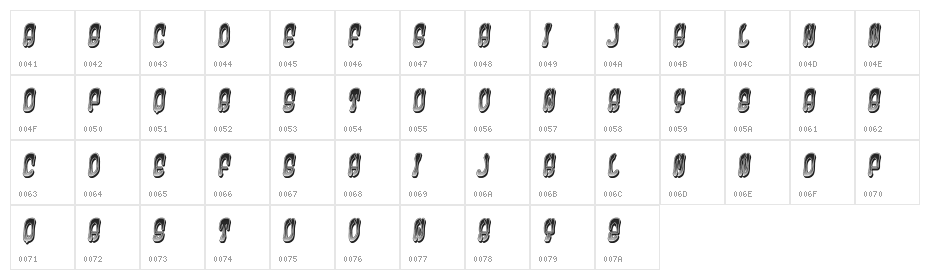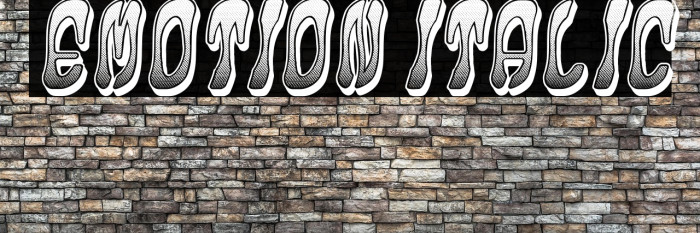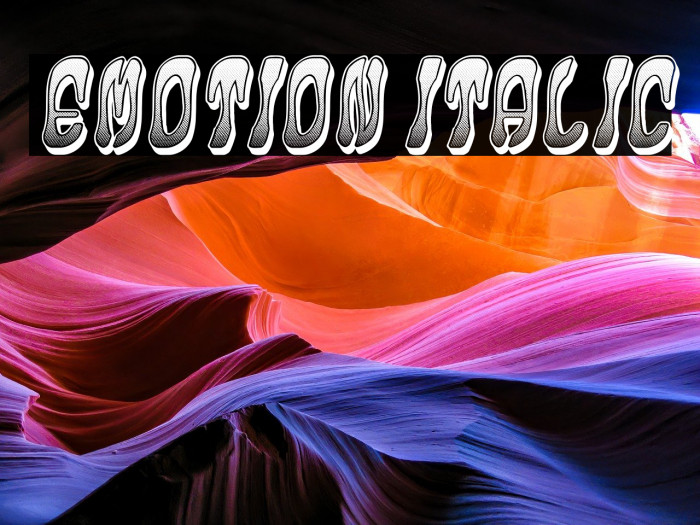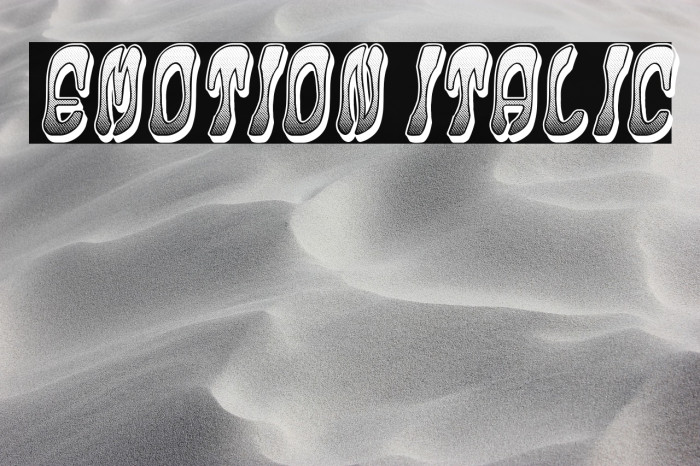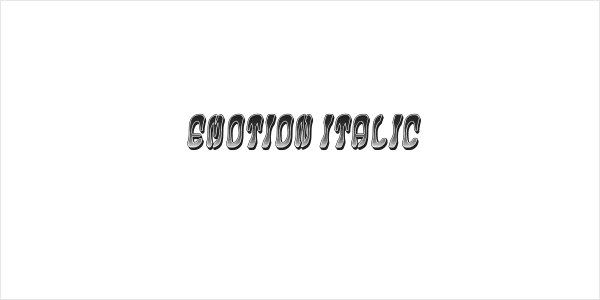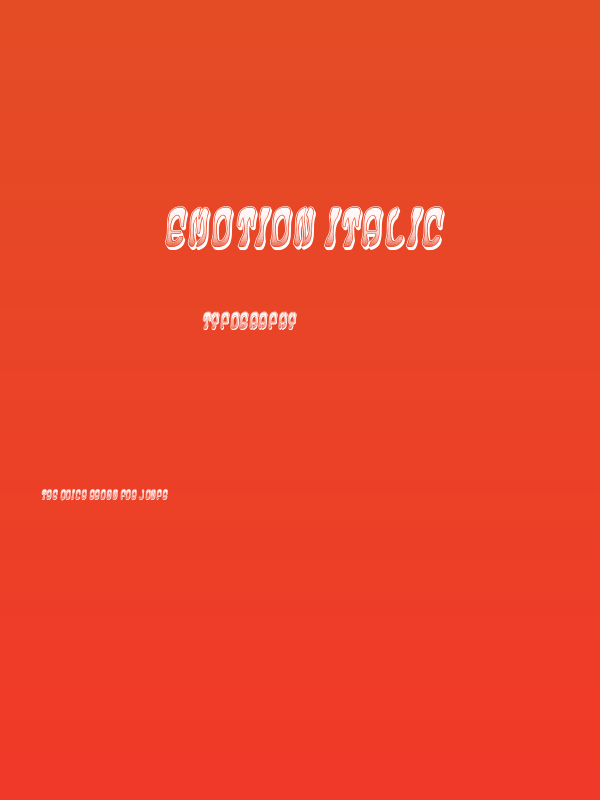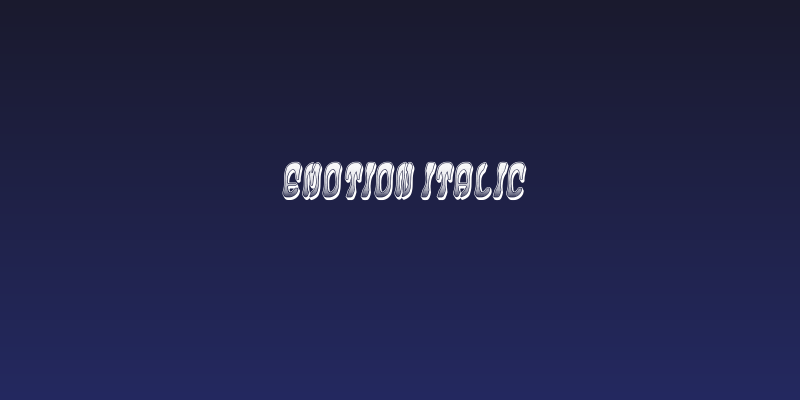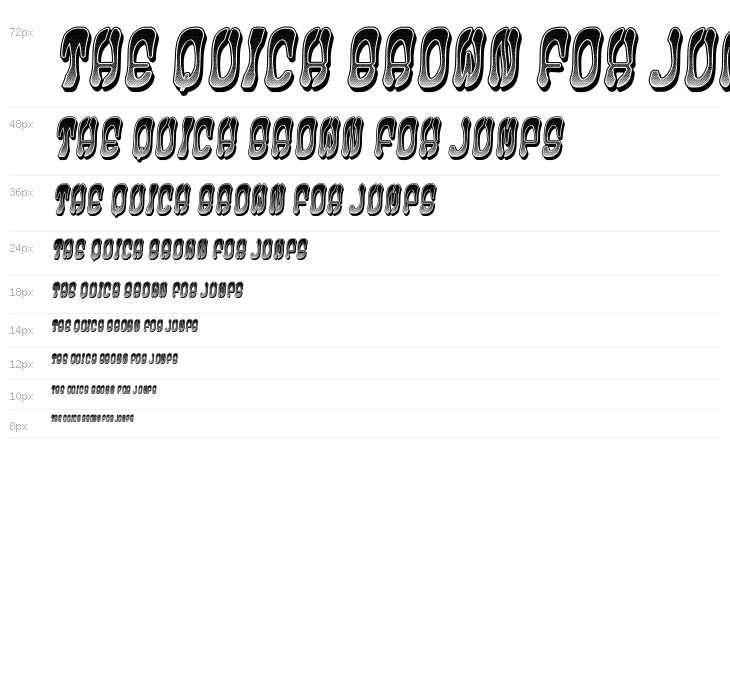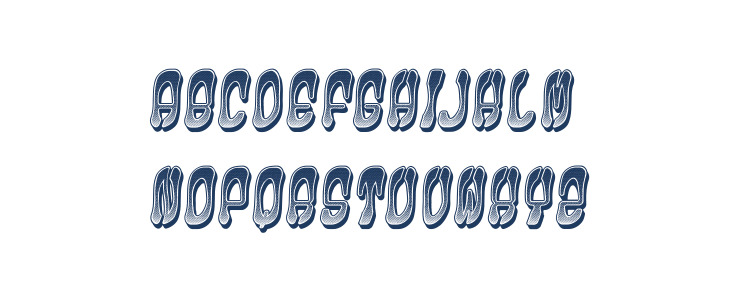
Emotion Italic Font
Emotion Italic Description
This font features a bold and dynamic style with a distinct three-dimensional effect. The letters are characterized by a thick outline and a shadowed interior, giving them a sense of depth and movement. The italicized form adds a sense of speed and fluidity, making it stand out as a display typeface. The unique texture within each character enhances its visual appeal, making it suitable for eye-catching designs. The font's playful yet structured appearance makes it versatile for various creative applications.